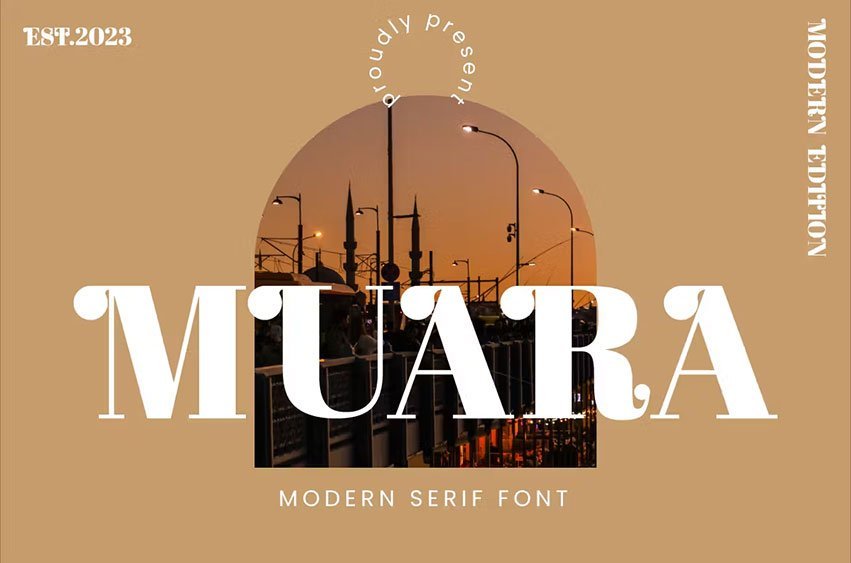
Muara Font is a simple and unique serif font. So perfect for you who needs a typeface for logo designs, magazine, social media, brochure, and many more.